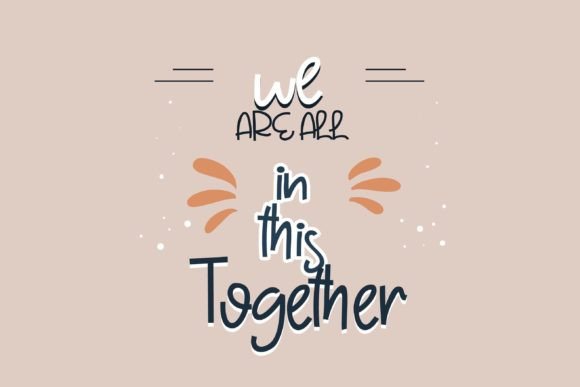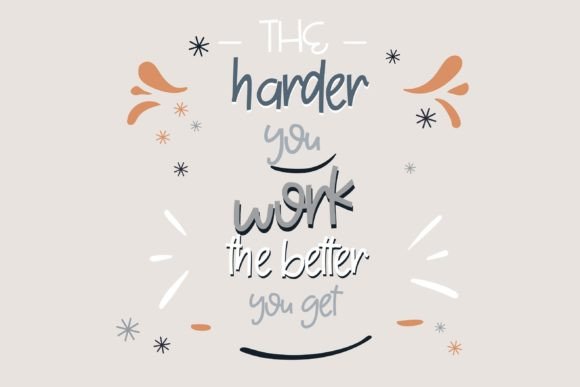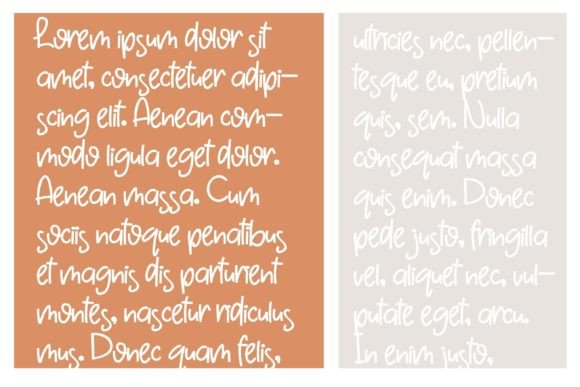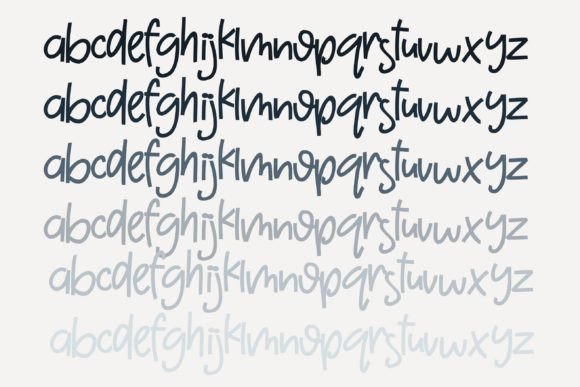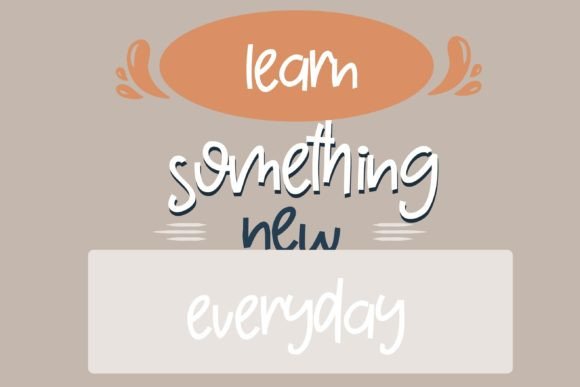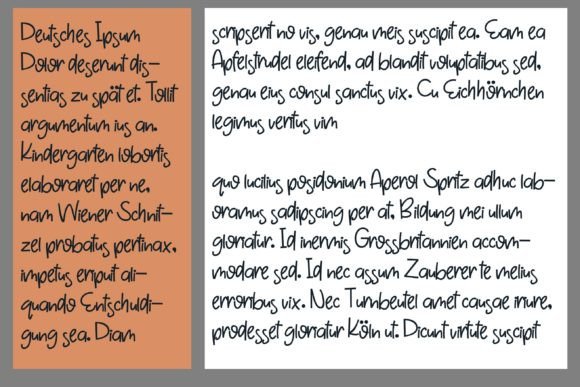
Egghead Font: A Casual Hand-Crafted Script Font for Creative Projects
Are you looking for a font that exudes a carefree and casual vibe for your creative projects? Look no further than the Egghead Font, a hand-crafted script font that is perfect for designers and crafters alike. In this article, we’ll dive into the world of hand-crafted fonts, explore the characteristics of the Egghead Font, and discuss how you can use it to add a personal touch to your work.
A hand-crafted font is a typeface that is designed to mimic the look and feel of handwriting. It’s a font that is created to look like it was written by hand, with all the imperfections and quirks that come with it. Hand-crafted fonts can be either formal or informal, and they can be used for a wide range of purposes, from invitations and greeting cards to posters and social media graphics.
Characteristics of Hand-Crafted Fonts
Hand-crafted fonts like Egghead Font have several distinct characteristics that set them apart from other types of fonts. Some of the key features of hand-crafted fonts include:
- Imperfect lines and curves: Hand-crafted fonts often have imperfect lines and curves, which give them a more organic and human feel.
- Variations in letter spacing and size: Hand-crafted fonts often have varying letter spacing and size, which adds to their informal and casual feel.
- Unique letterforms: Hand-crafted fonts often have unique letterforms that are designed to look like they were written by hand.
Egghead Font: A Casual Hand-Crafted Script Font
Egghead Font is a beautiful example of a hand-crafted script font. With its casual and easy-going attitude, it’s perfect for designers and crafters who want to add a personal touch to their work. This font is ideal for:
- Invitations and greeting cards: Egghead Font is perfect for creating invitations and greeting cards that need a personal and casual touch.
- Social media graphics: This font is great for creating social media graphics that need to stand out from the crowd.
- Posters and flyers: Egghead Font can be used to create eye-catching posters and flyers that need a casual and creative vibe.
Tips for Using Hand-Crafted Fonts like Egghead Font
Here are some tips for using hand-crafted fonts like Egghead Font in your creative projects:
- Use it sparingly: Hand-crafted fonts can be overwhelming if used too much. Use them sparingly to add a personal touch to your work.
- Pair it with a sans-serif font: Pairing a hand-crafted font with a sans-serif font can create a beautiful contrast and add visual interest to your work.
- Experiment with different colors and textures: Hand-crafted fonts look great with different colors and textures. Experiment with different combinations to find the one that works best for your project.
In conclusion, Egghead Font is a beautiful hand-crafted script font that is perfect for designers and crafters who want to add a personal touch to their work. With its casual and easy-going attitude, it’s ideal for invitations, greeting cards, social media graphics, and more. By understanding the characteristics of hand-crafted fonts and following our tips for using them, you can create unique and eye-catching creative projects that stand out from the crowd.
Egghead Font is a beautiful hand-crafted script font that can add a personal touch to your creative projects. With its casual and easy-going attitude, it’s perfect for designers and crafters who want to create unique and eye-catching work. By understanding the characteristics of hand-crafted fonts and following our tips for using them, you can create stunning creative projects that showcase your personality and style.